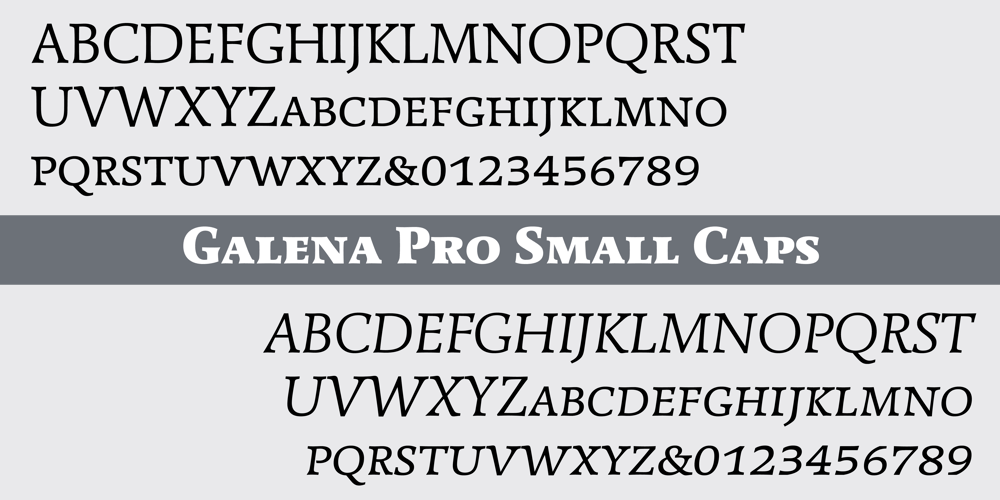
Galena Pro SC Font Family was designed by Jean-Renaud Cuaz and published by Typorium. Galena Pro SC contains 8 styles and family package options. Galena Pro is an extended version of Galena, a typeface published for Bayer Corporation in 1996. Galena Pro is based on the open and organic forms imagined by the writers of humanist Italy, who designed the first so-called Roman characters. Humanist style fonts have moderate stroke contrast, uneven widths, and a classic, but soft and easy-to-read appearance. Galena Pro gives a new birth to the 15th century incunabula, a typographic drawing where the gestures of this standardized handwriting are not mechanical, but more fluid.The Galena Pro series can provide professional typography with OpenType features such as alternative sets of numbers, fractions and an extended character set to support Central and Eastern European as well as Western European Languages.The different styles of the Galena are enriched with a condensed variant to meet the need for space savings in titles and texts.